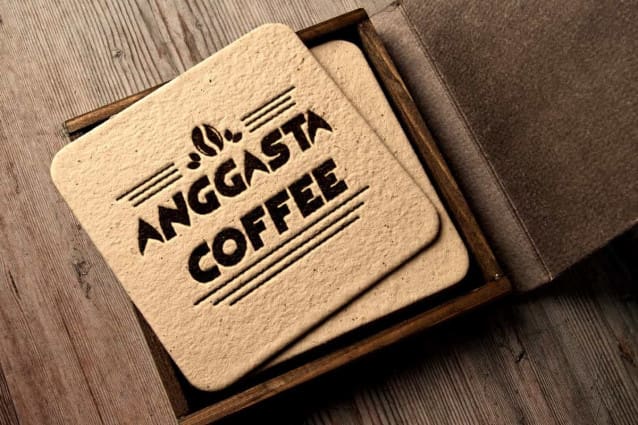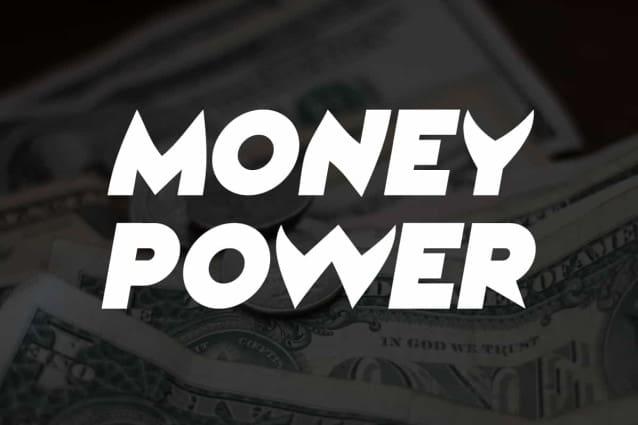
Money Power Font
Money Power Font is a unique playful gaming display font for racing theme. At first glance, this font may look ordinary, but it has a special cut shape that makes it different. It will suits many designs, such as brand image, custom design, invitation, label, poster, product packaging, quotes, screen print, signage, website, and more!
Money Power Font includes full set of ALL CAPS for Uppercase and Lowercase Basic Characters, Numerals, Punctuation and Symbol. This awesome font can make your design more attractive and will be suitable for many industries, such as accessories, advertising, automotive, cafe, event or festival, fashion, furniture, game, movie, photography, sport, etc.